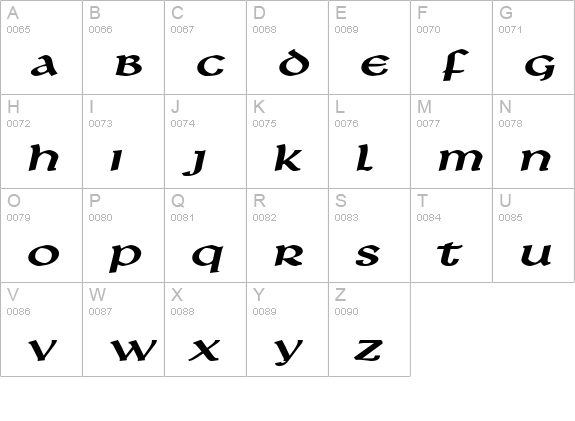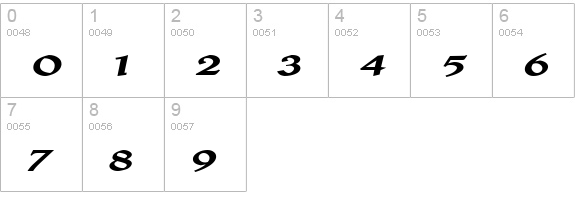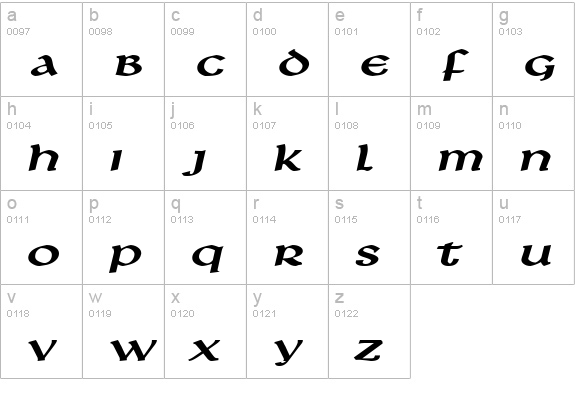
Leo Extended BoldItalic is a distinctive, extended-width variant in the Leo typeface family \xE2\x80\x94 well suited to design and typography projects.
Introducing Leo Extended BoldItalic, a visually captivating font that effortlessly combines boldness and elegance. Its distinctive and eye-catching design is perfect for creating impactful headlines, stylish logos, and stunning branding materials. Leo Extended BoldItalic is not just visually appealing, but also versatile in its application. It adds a touch of sophistication to any project, whether it's a magazine layout, website design, or advertising campaign. With its bold and italicized form, this font exudes a sense of confidence and modernity, making it an excellent choice for designers seeking to make a bold statement. One of the most amazing aspects of Leo Extended BoldItalic is that it is free! Yes, you heard it right. This stunning font is freely available to download at FontsMarket.com. Now, you can bring your creative visions to life without worrying about the cost. This opportunity allows you to explore the endless possibilities of this font, experiment with different design ideas, and truly make your work stand out. Leo Extended BoldItalic boasts extensive language support, making it accessible to designers worldwide. Its meticulously crafted characters ensure legibility across various mediums, ensuring that your message is delivered with utmost clarity and impact. So, why wait? Take advantage of this extraordinary font and elevate your design projects to new heights. Download Leo Extended BoldItalic for free at FontsMarket.com and witness the transformative power this font holds. Unleash your creativity and let Leo Extended BoldItalic be your trusted companion in creating visually stunning and engaging designs.